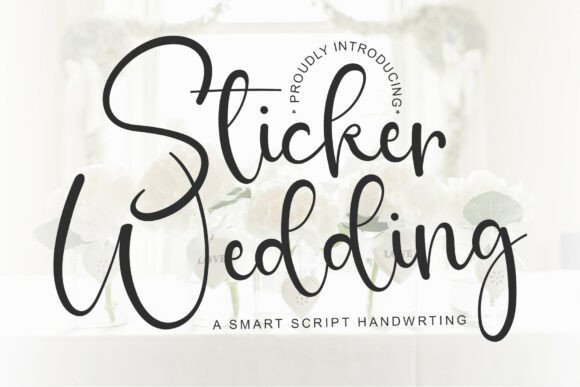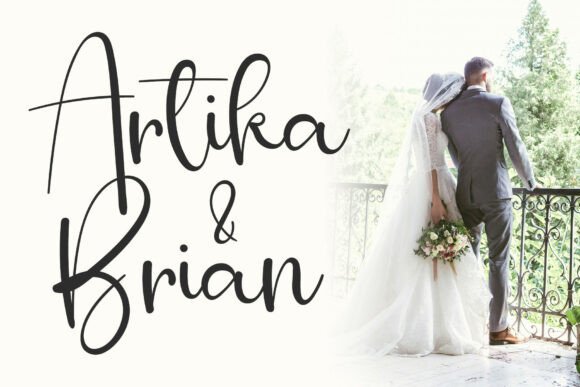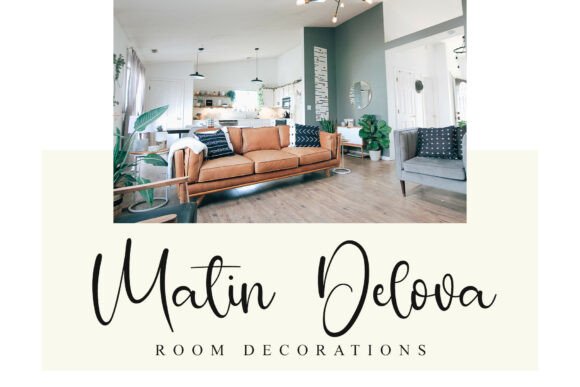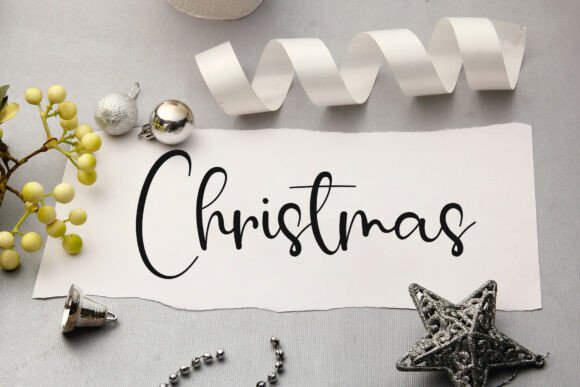
Sticker Wedding Font: Sweet Handwritten Script for DIY & Cricut Projects
About the Sticker Wedding Font
Let us introduce you to Sticker Wedding Font, where timeless design meets modern craftsmanship. Sticker Wedding is a sweet and cursive handwritten font. This gentle font will look gorgeous on a variety of design ideas. It will add a joyful and romantic touch to each of your projects! Perfectly fit for branding, logo, wedding things, greeting cards, fashion, lookbook, marketing promotion, anytime you want to look fancy elegant but still casual.
Sticker Wedding Font Usage Examples
Sticker Wedding Font Example